Bodoni is a serif font created by Giambattista Bodoni. This modern font was originally inspired by Baskerville. It is now modernized for web use.
There are many different Bodoni fonts that have been reinvented over the years.
- Bodoni Moda
- Arapey
- Prata
All three of these would make for decent alternatives. So let's cover the differences between each one.
Bodoni Moda
Bodoni Moda is the most similar looking. It is part of the Bodoni family that was made for the digital age.
It works great for headlines and titles. The best part is that it is free to use from Google font.
It is hard to find any differences between these two. From closely examining the two fonts it seems that Bodoni Moda is a little wider. Other than that they are extremely similar.
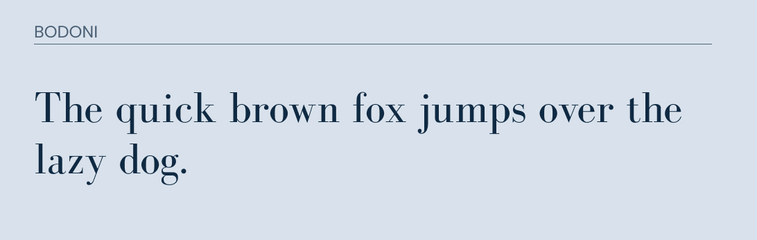
Arapey
Arapey is a serif font with some Bodoni features. It features soft lines and finishes that give it a distinguished look.
It also does an amazing job in matching the majority of the Bodoni letters.
However, if you pay close attention, you will notice a small difference in the lower and uppercase "q".
Prata
Prata is the final font on this list because it also features many similarities. I would recommend with using either one of the fonts above before this one. However, if none of those above work then this would also make a good alternative.
You will see that it matches many letters well, but you can see the big difference between the "y" and a minor difference in the lowercase "g".
Luckily Google Fonts has a great alternative for Bodoni. Bodoni Moda, Arapey, and Prata all make great alternatives for this font and they are all available on Google Fonts.